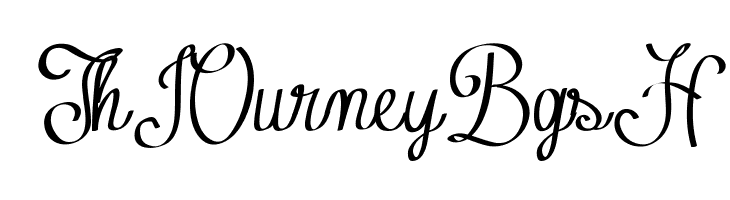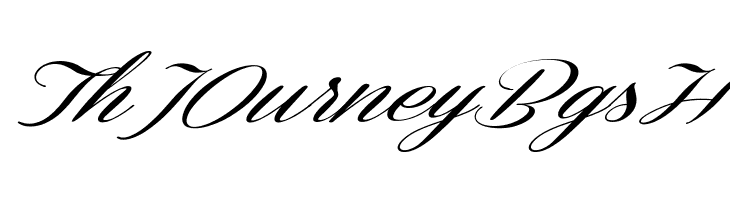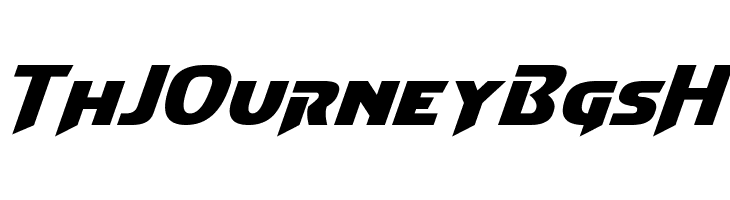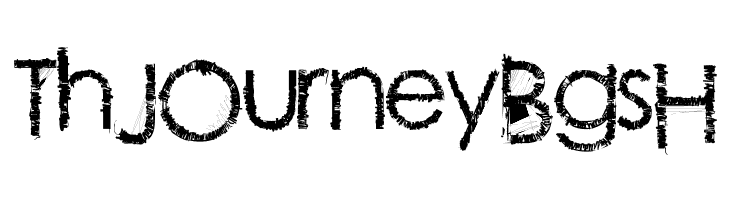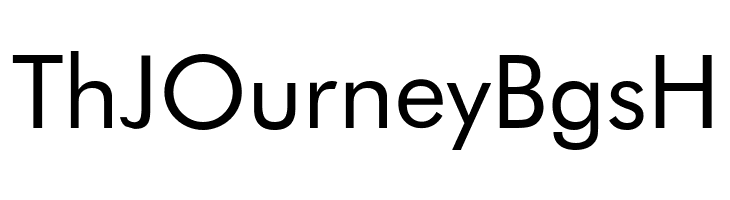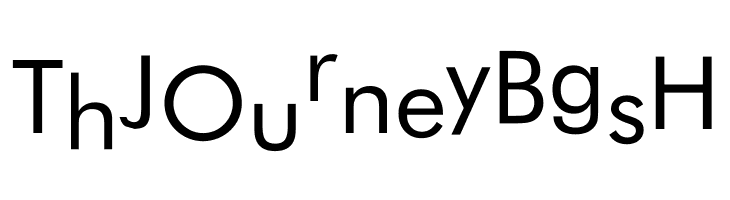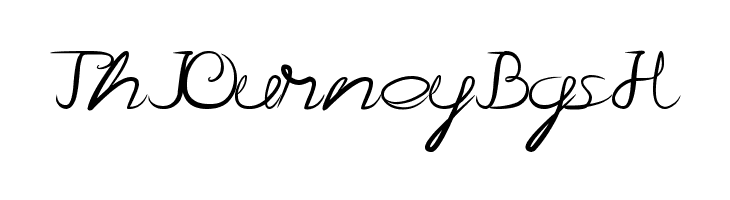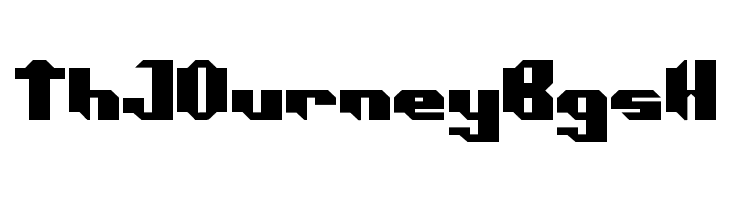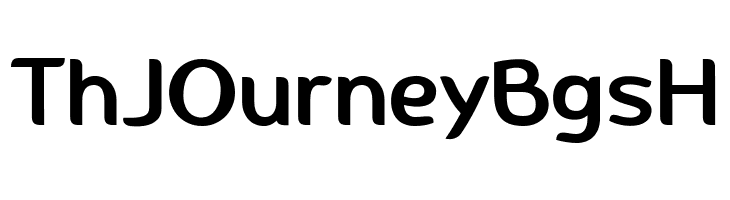
A bold, rounded font with smooth curves and uniform strokes.
A playful, handwritten font with a quirky and informal style.
A bold, angular font with a strong geometric design.
A bold, angular font with a modern and edgy style.
A bold, hand-drawn font with a playful, sketch-like texture.
A casual, handwritten font with a playful and dynamic style.
A whimsical, hand-drawn font with thin, elongated letterforms.
A classic serif font with elegant thin serifs and slight stroke contrast.
A playful, hand-drawn font with a bold, marker-like style and tight character spacing.
A bold, decorative font with angular, ornate designs and intricate flourishes.
An angular, decorative font with Gothic influences and intricate detailing.
A modern, geometric font with clean lines and a futuristic style.
A playful, dotted font perfect for creative and modern designs.
A playful, dotted font with a modern and decorative style.
A dot matrix font with a modern, digital aesthetic.
A bold, dotted font with a modern, digital aesthetic.
A bold, geometric outline font with a modern, industrial style.
A bold, angular font with a geometric and impactful design.
A bold, angular font with a monstrous and imposing style.
A sleek, futuristic font with geometric lines and a modern aesthetic.
A sleek, ultra-thin font with a modern, minimalist design.
A futuristic, geometric font with elongated, narrow letterforms and sharp angles.